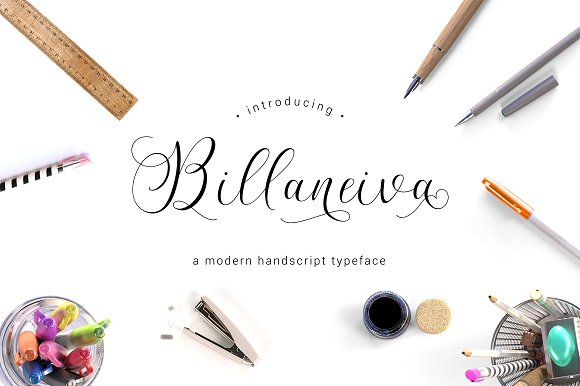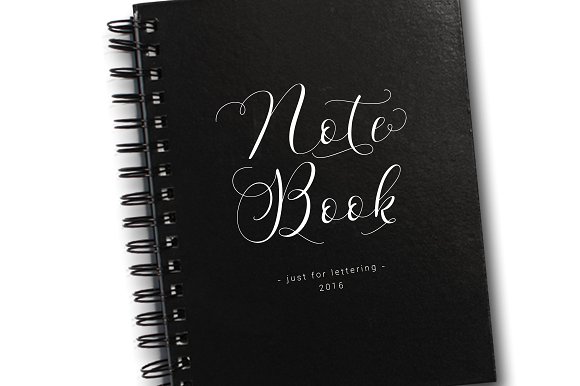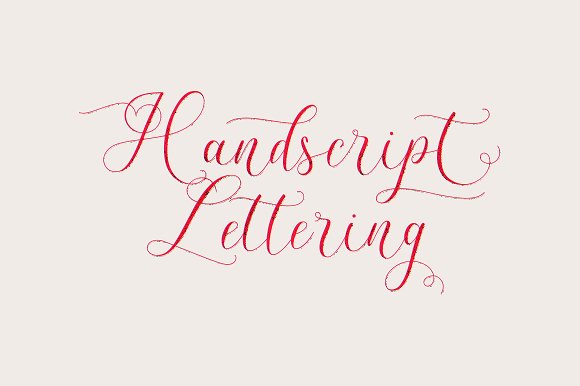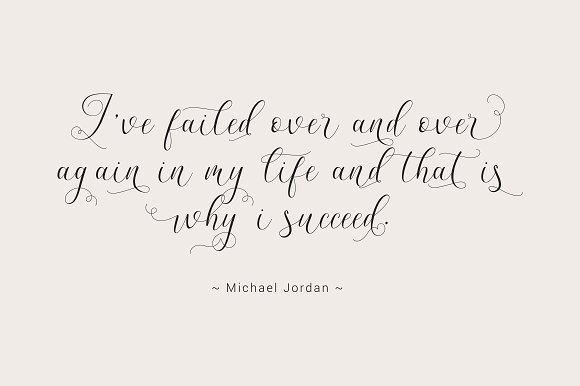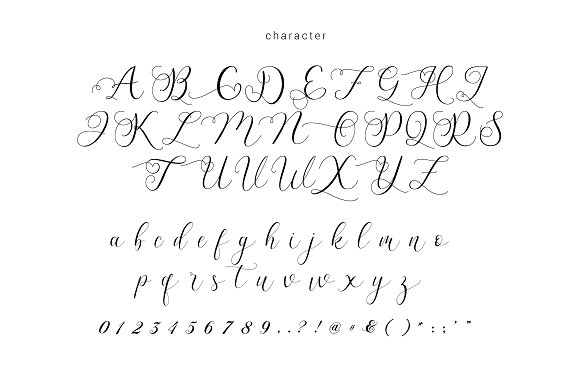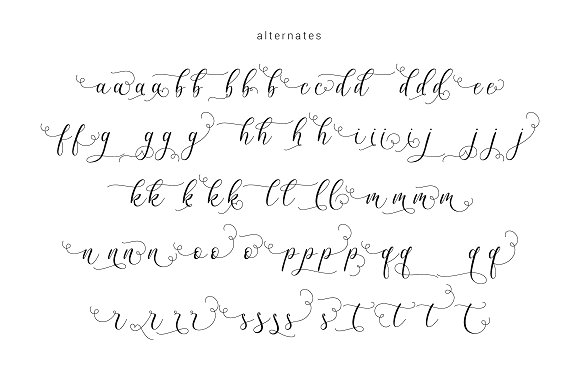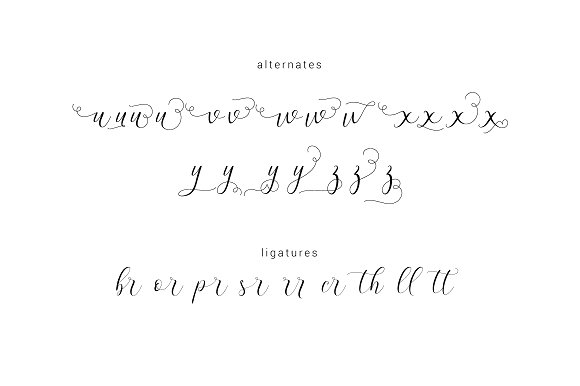
HomeScript FontsBillaneiva Font Script Fonts Billaneiva Font FacebookXPinterestWhatsApp Billaneiva Font Poster 2 Billaneiva Font Poster 3 Billaneiva Font Poster 4 Billaneiva Font Poster 5 Billaneiva Font Poster 6 Billaneiva Font Poster 7 About Billaneiva Font Billaneiva is a gorgeous handwritten font with super thin lines. DOWNLOAD NOW People also explored Mooden Font Enrinco Font Gajero Font Everything Has Changed Font Dreamland Font Pomotha Font Dead Wood Rustic Ink Blossoms Karlust Font 277 0 TagsBillaneiva Font Previous articleLegacy FontNext articleAutumn Flower Font LEAVE A REPLY Cancel reply Comment: Please enter your comment! Name:* Please enter your name here Email:* You have entered an incorrect email address! Please enter your email address here Website: Save my name, email, and website in this browser for the next time I comment. Personal Use Free Carnivals Personal Use Free Read more about this font Equestrain Personal Use Free Read more about this font Namskow Personal Use Free Read more about this font Super Discount Personal Use Free Read more about this font BLOG Best Fonts for YouTube Videos: Make Your Thumbnails Stand Out Best Fonts for YouTube Videos: Make Your Thumbnails Stand Out Choosing the right font can make a massive difference in how your YouTube videos perform.... Fonts That Capture the Spirit of New York City Free vs Paid Fonts: Why Investing in Premium Fonts Is Worth It Top 10 Handwritten Fonts That Elevate Your Designs